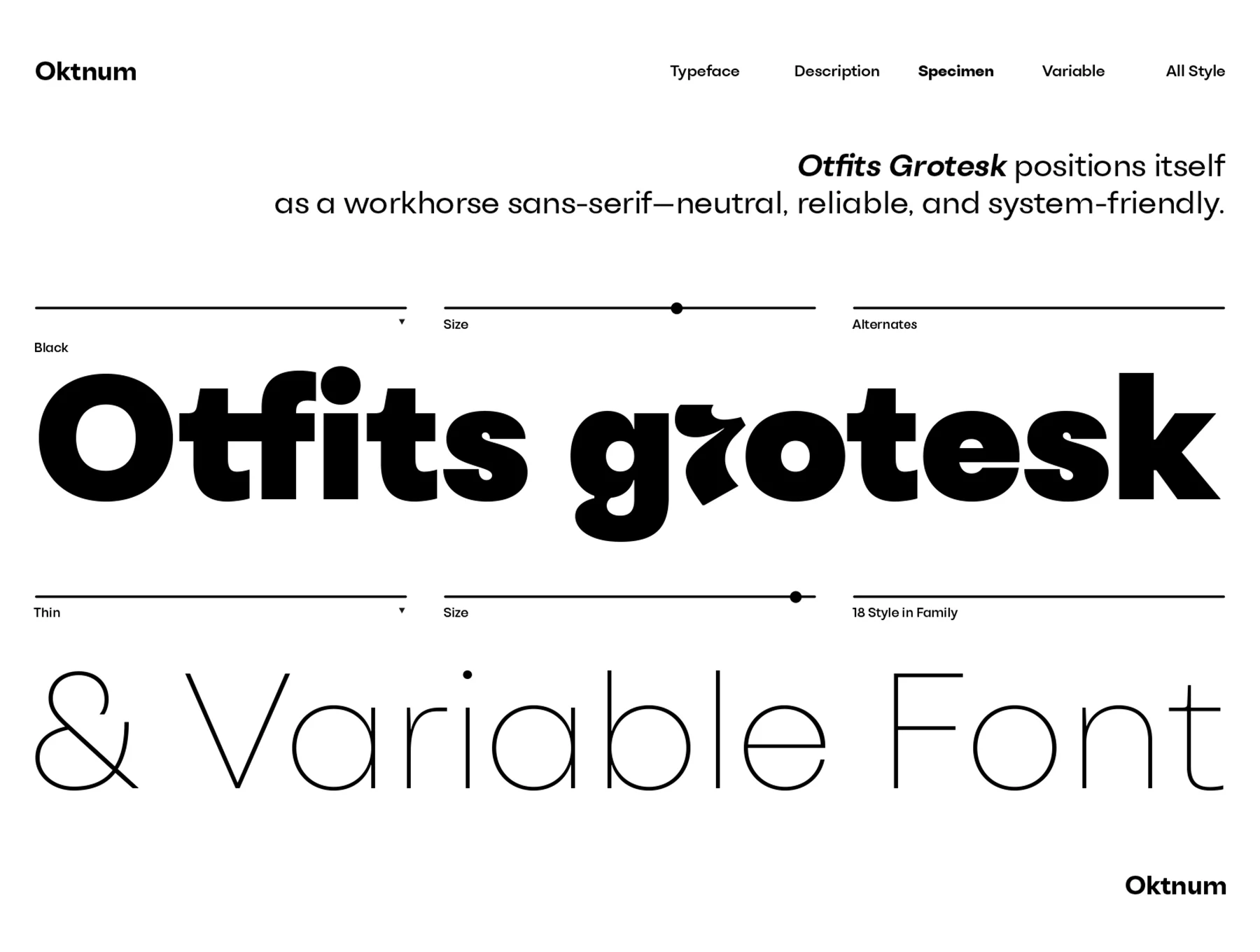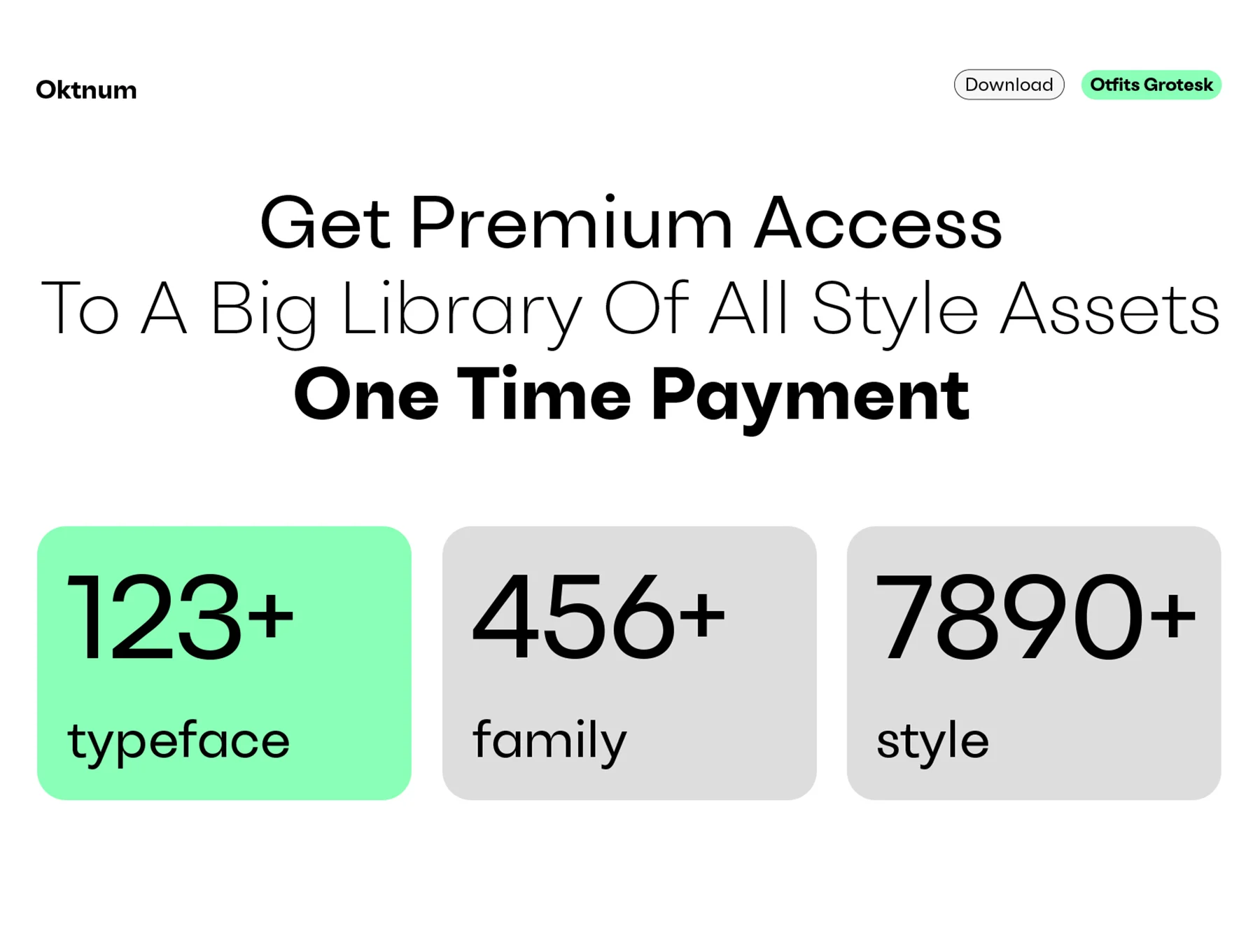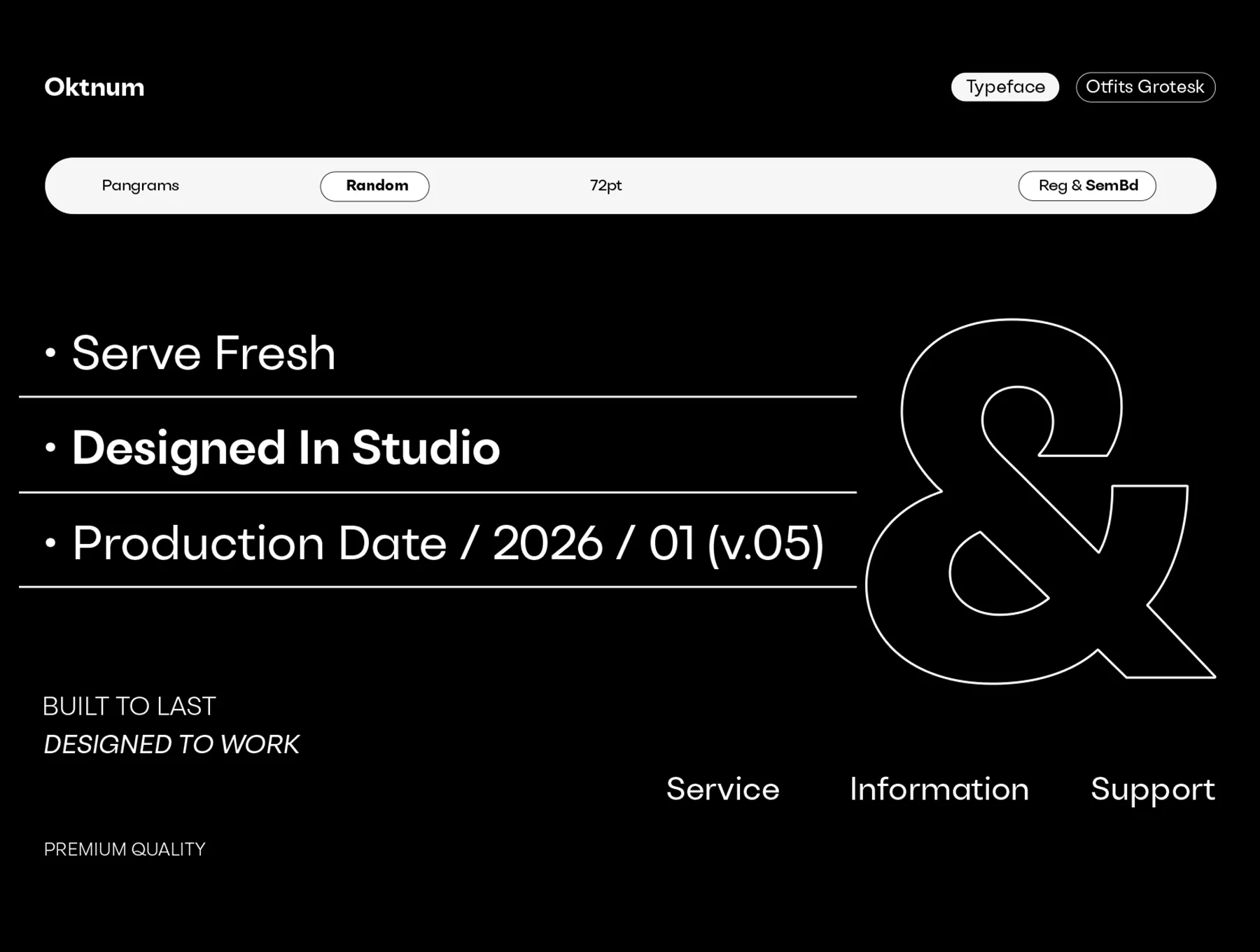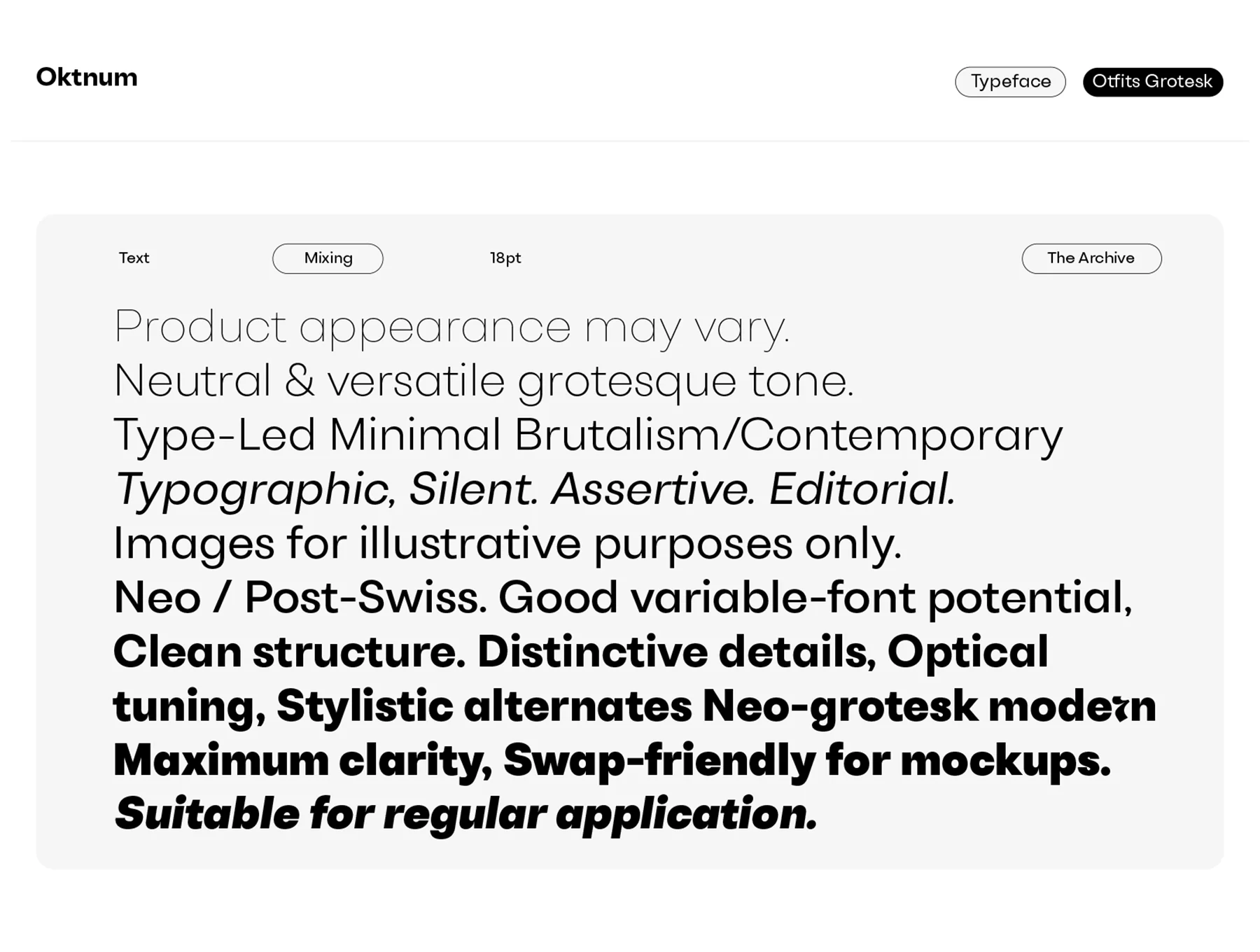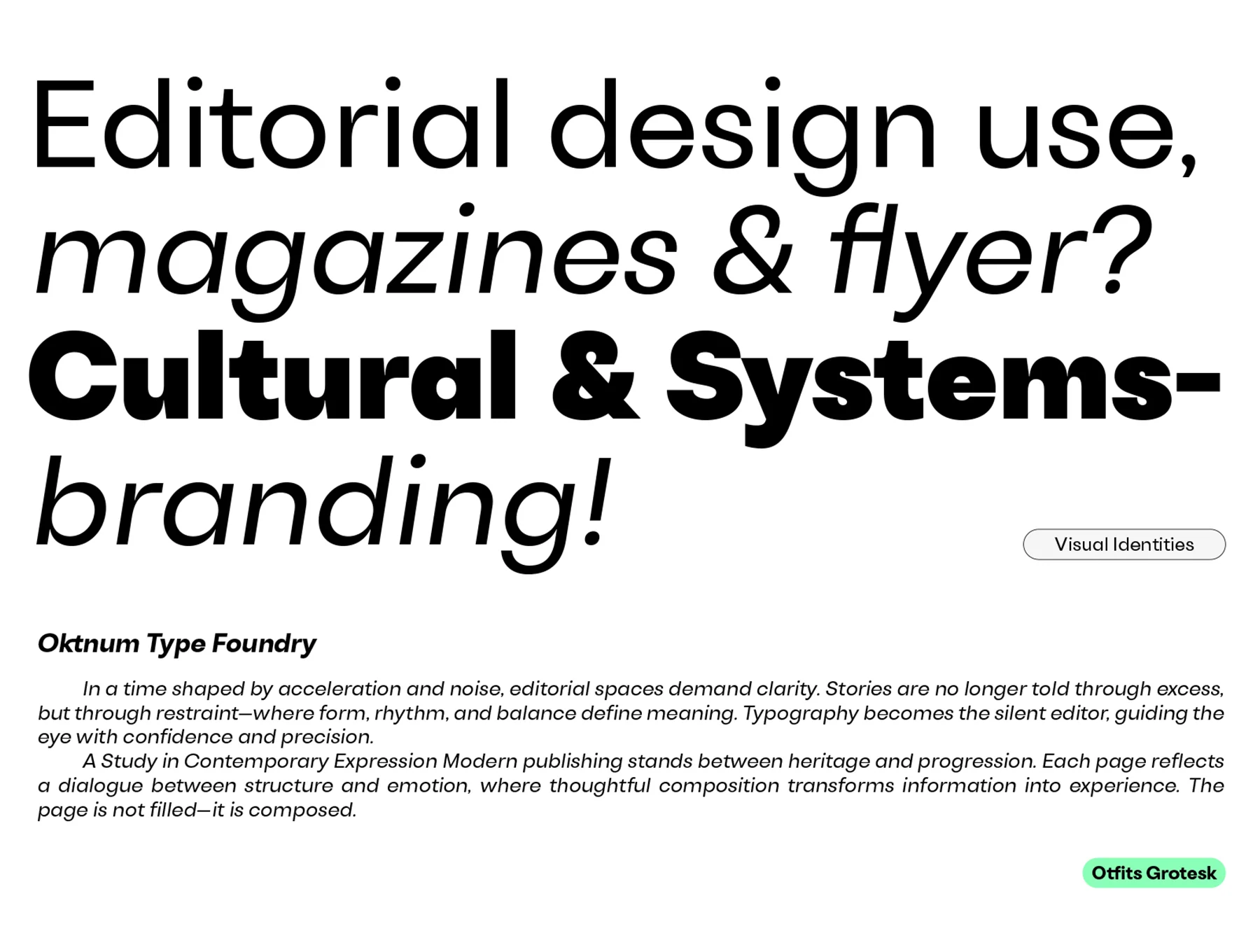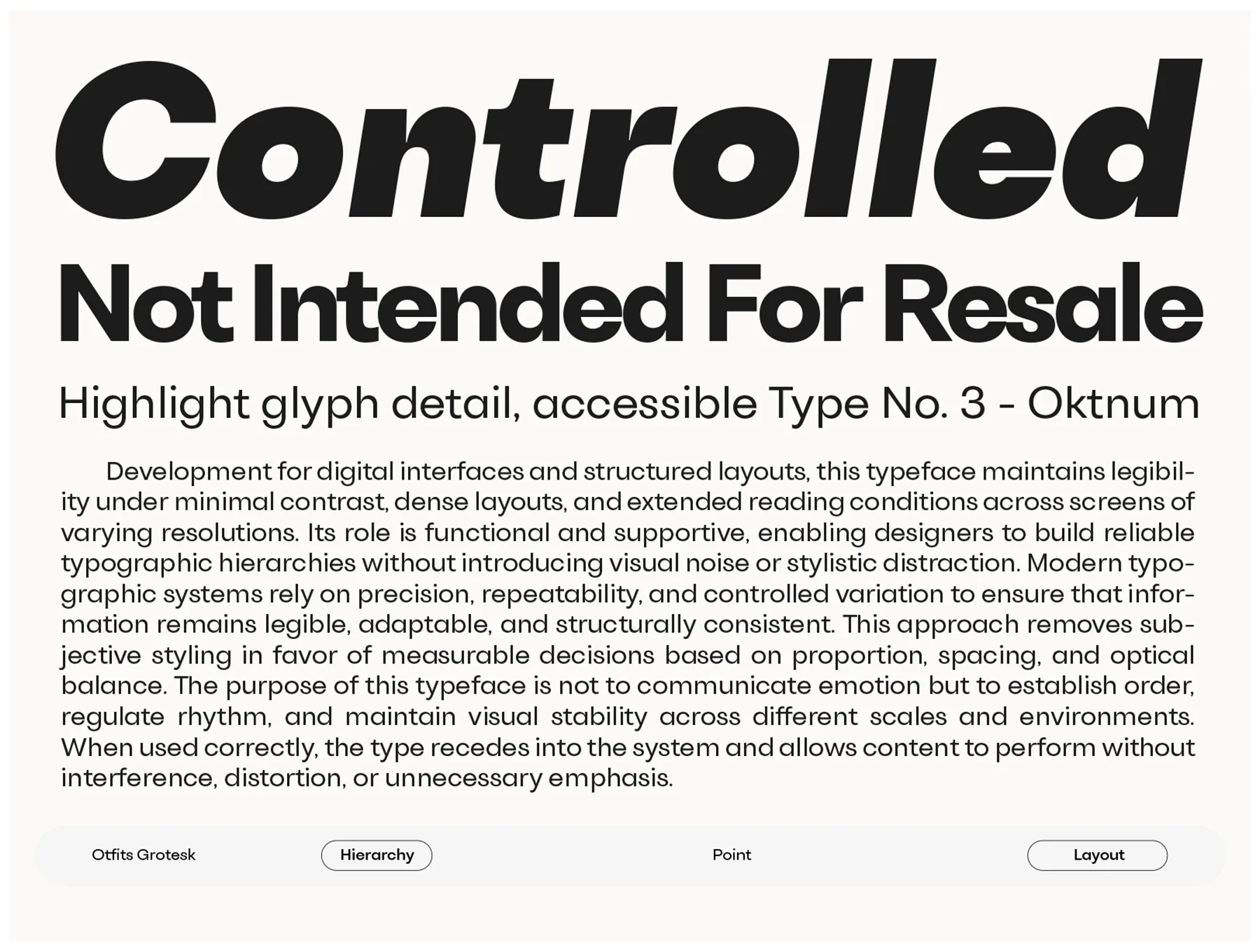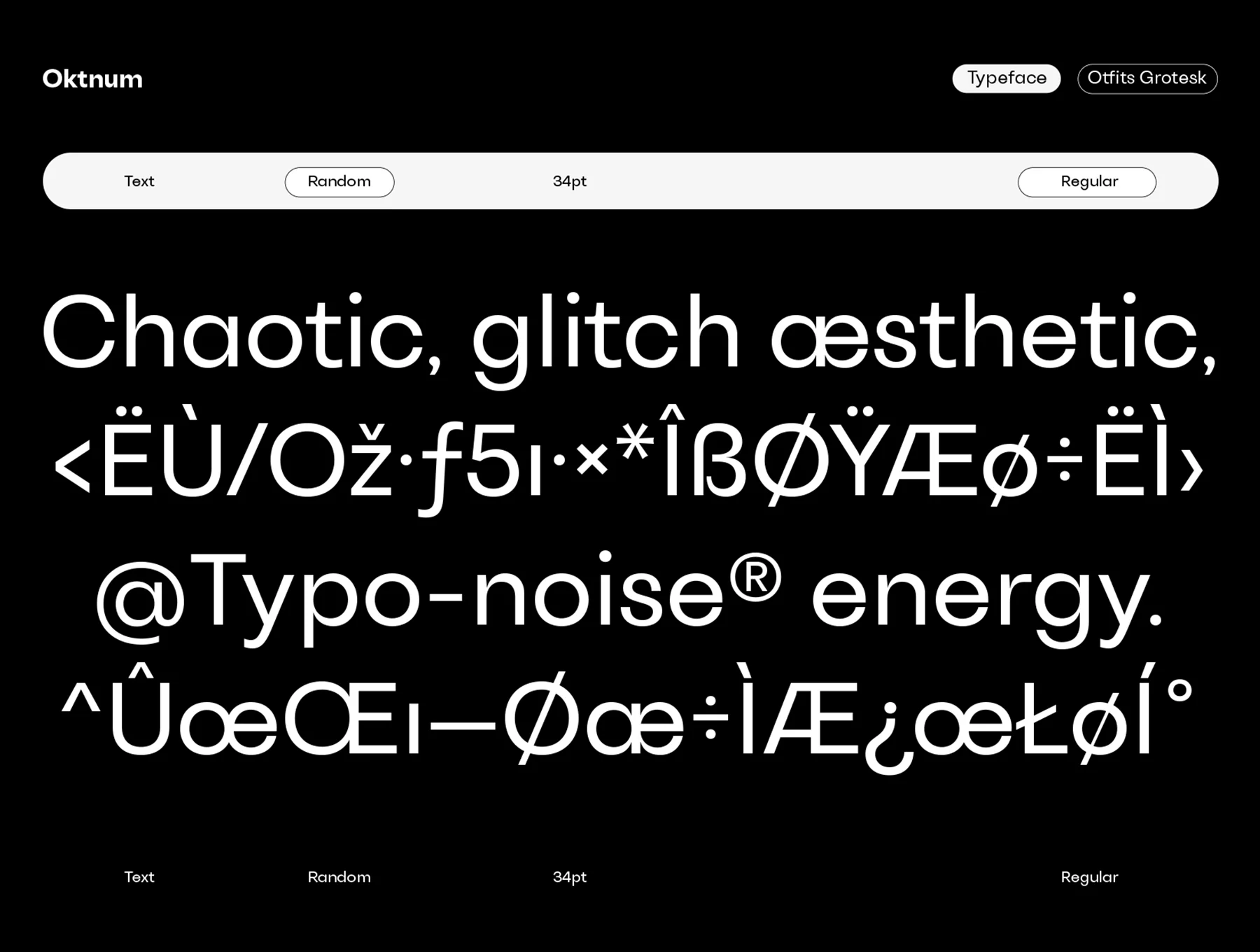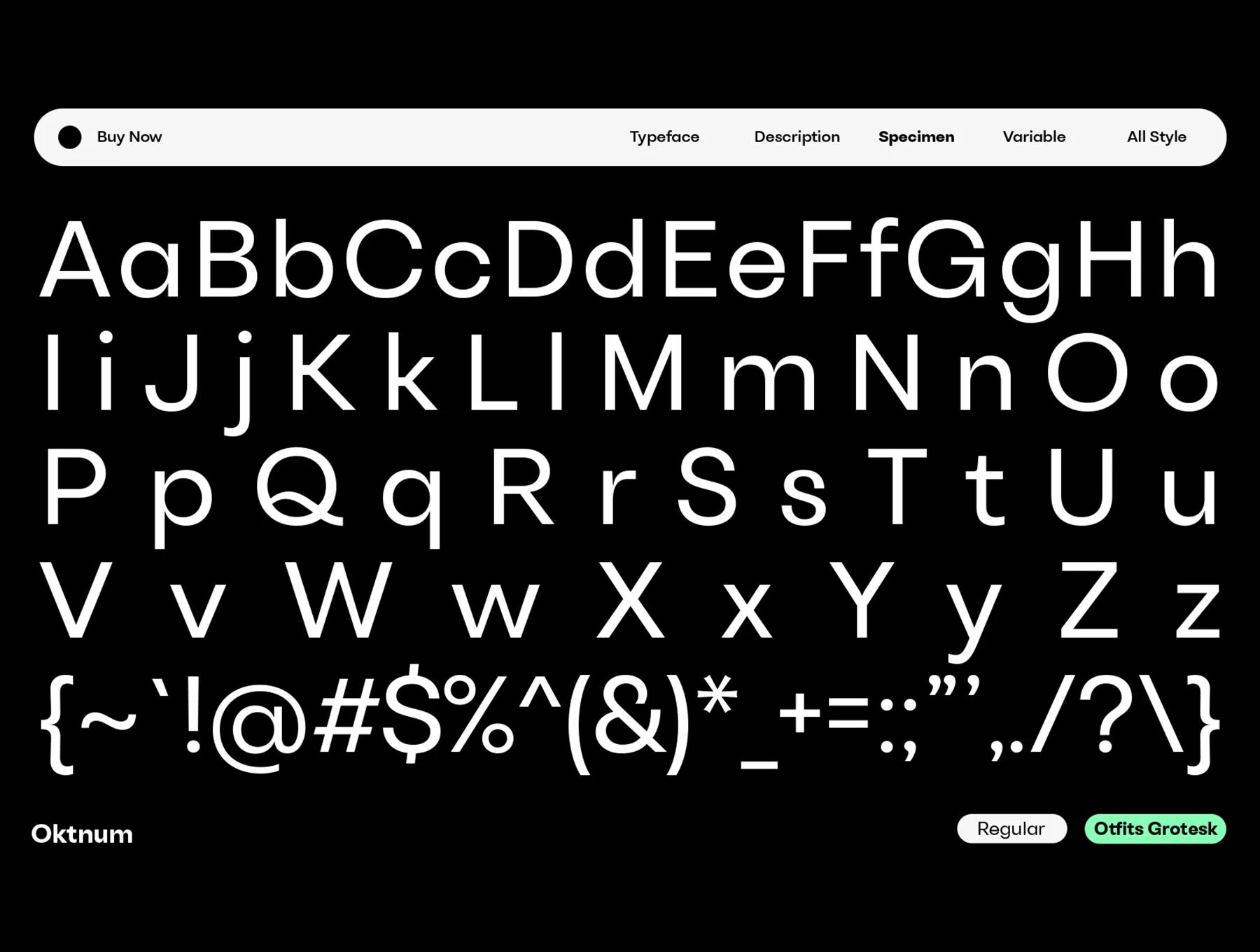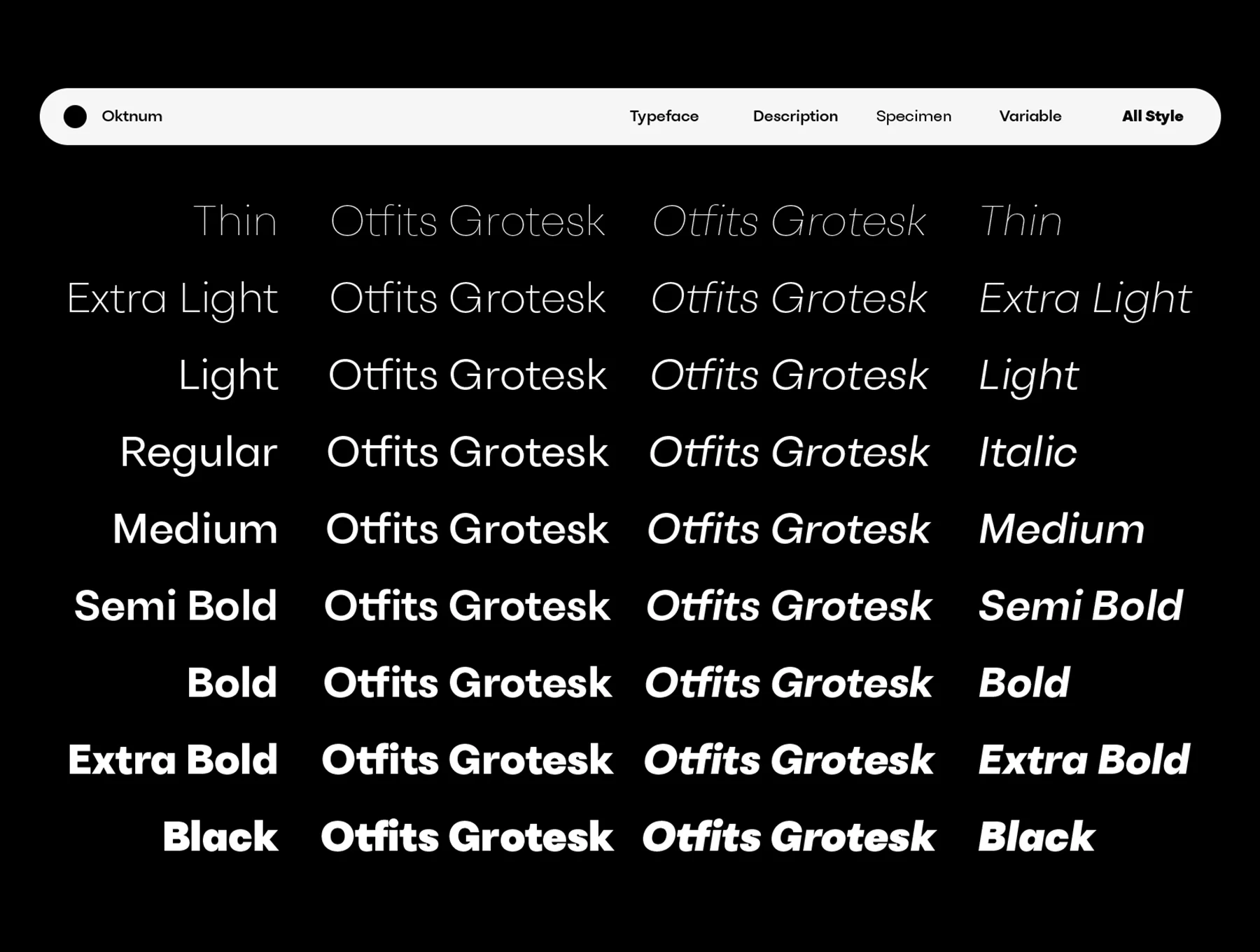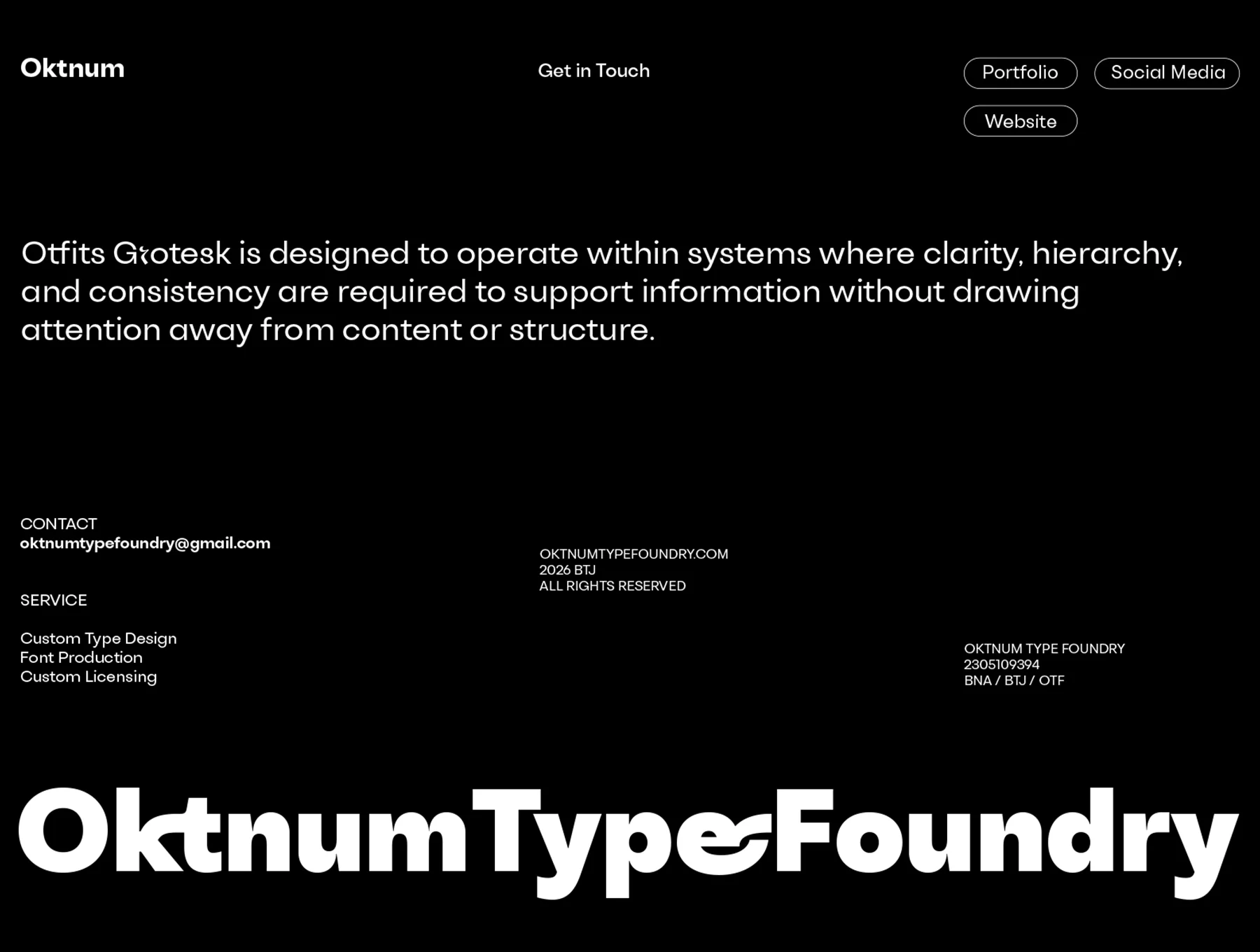
Otfits Grotesk Display Typeface
Designed to scale across brand systems and UI
19 font styles, including slanted italics
Uppercase and lowercase letters, numbers
Punctuation, standard ligatures, alternates
Otfits Grotesk is a modern grotesque sans-serif built for clarity, flexibility, and everyday use. Its balanced geometry, subtle humanist detail, and refined spacing give it a calm, dependable voice. As a variable font with adjustable weights, it works well for branding, interfaces, editorial design, and visual identity systems.